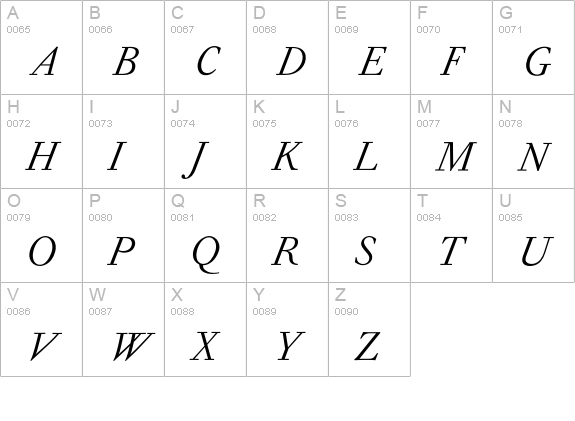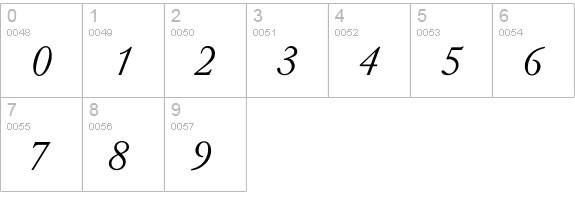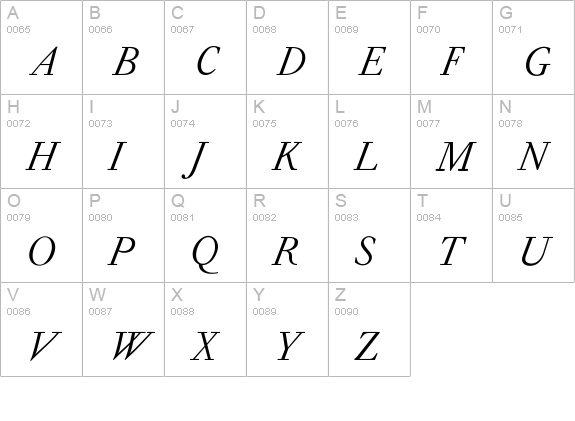
PeerGyntItalic Font Details
PeerGyntItalic is a stunning and sophisticated font that exudes elegance and charm. Its sleek and delicate letterforms are beautifully slanted, adding a touch of grace and refinement to any design project. With its unique cursive style, PeerGyntItalic effortlessly captures attention and creates a sense of intrigue. This font is perfect for those looking to add a touch of sophistication and class to their designs. Whether it's for a wedding invitation, a luxury brand logo, or an editorial layout, PeerGyntItalic will elevate your design to new heights. What makes PeerGyntItalic even more amazing is that it is available for free download at FontsMarket.com. Yes, you read that right - this incredible font can be yours without spending a penny. FontsMarket.com offers a vast collection of high-quality fonts, and PeerGyntItalic is just one of the many gems you can find on the website. So why wait? Enhance your designs with the timeless beauty of PeerGyntItalic, and let your creativity soar. Download it for free at FontsMarket.com and watch your projects come to life with this exquisite font.